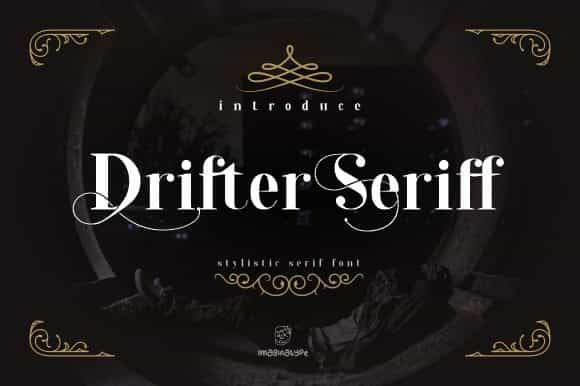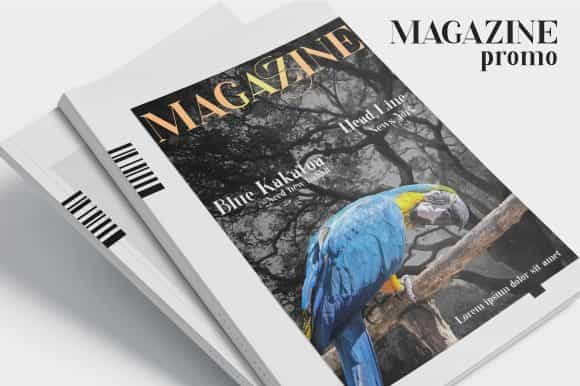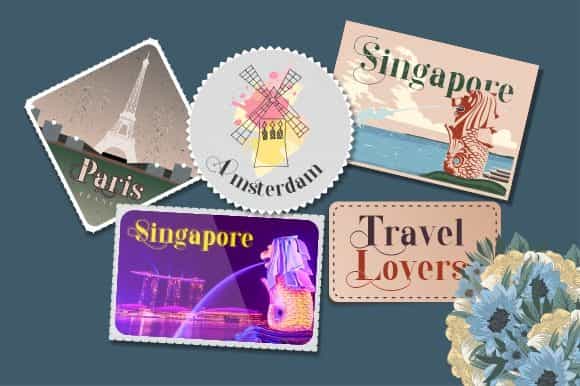
Drifter Seriff is an elegant and unique serif font. With its neat and beautiful arrangement of letters, this typeface will look great in both high-end projects and more casual ones.